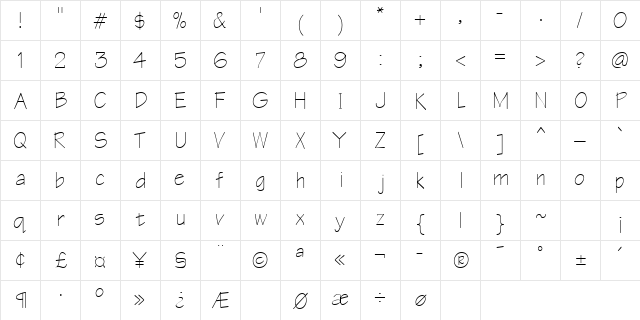
Architect Regular Font Preview
Architect Regular
Architect Regular Font Details
Design Context for Architect Typeface
Architect takes a measured approach to typography — its balanced proportions and neutral character make it a reliable workhorse for both digital and print work.
Pro Tip: Pair Architect with a font of contrasting weight or personality to build a more expressive typographic hierarchy.